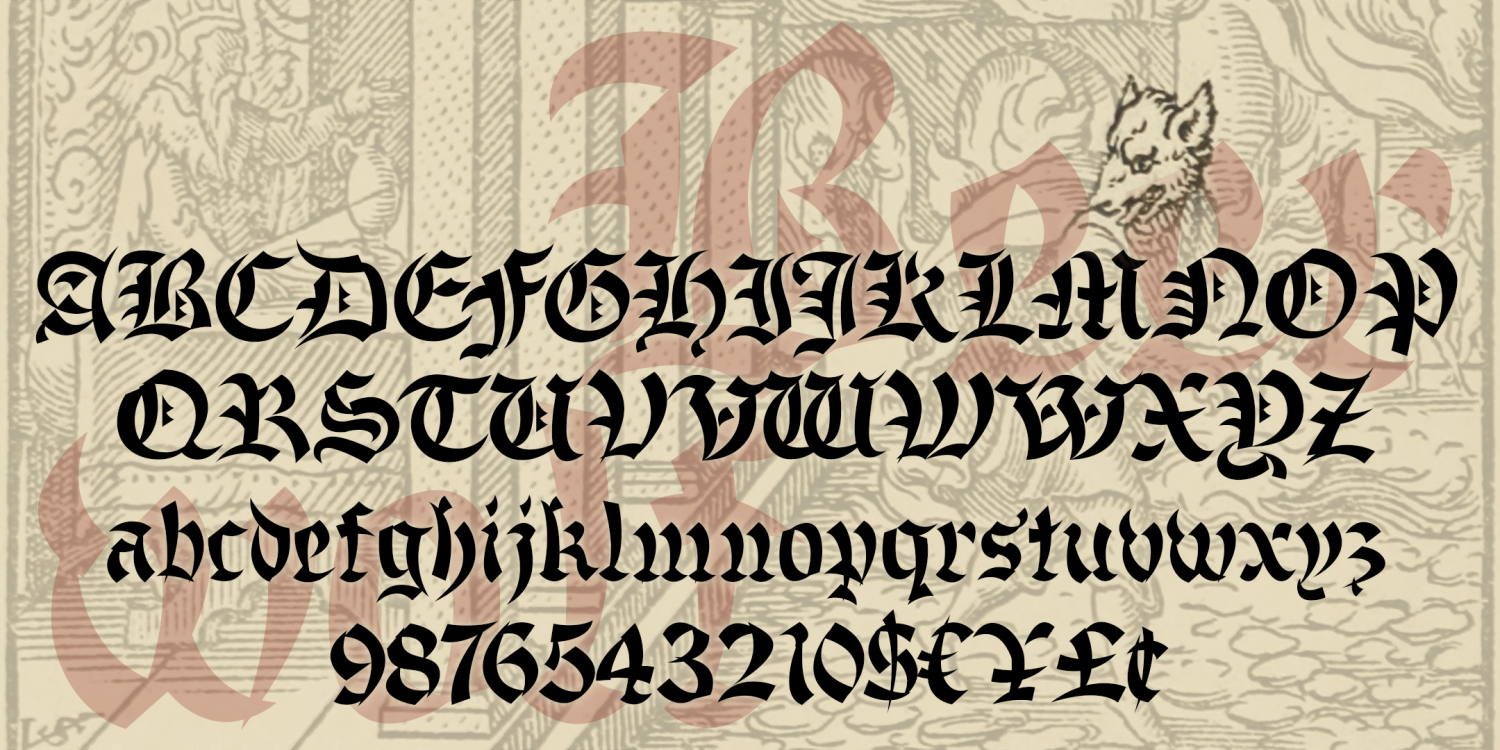
Beerwolf
Beerwolf is font of transformation, a blackletter that's becoming something more dangerous. The wedge-shaped strokes resemble flames, wolf's teeth, and ears, or maybe just brushstrokes. The Beerwolf is a creature of German folktales like the werewolf;…